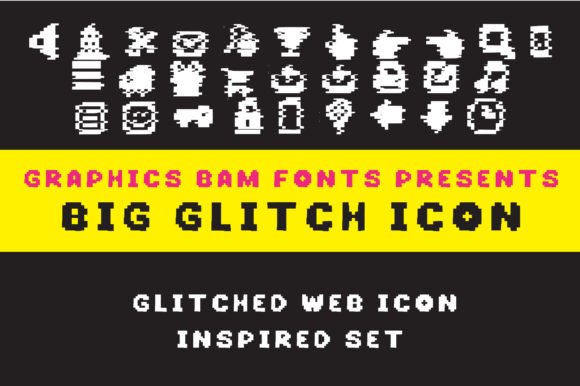
Glitching into the World of Design
You know that moment when you’re brainstorming a new design concept, and suddenly, everything clicks? You feel like you’ve stumbled upon a hidden treasure trove of inspiration, and your creativity runs wild. For designers, these moments are pure magic. And today, I want to share with you a secret that’s about to take your designs to the next level.
Meet the Big Glitch Icon Font – a cool, uniquely shaped, pixelated dingbats font that’s ready to disrupt the design world. This trendy font is designed to add a distorted, futuristic touch to your designs, making them stand out in a crowded market. Whether you’re working on a web project, a mobile app, or a graphic design piece, the Big Glitch Icon Font is the perfect addition to your toolkit.
Big Glitch Icon Font Features
Big Glitch Icon Font Review
Overall, I’d say the Big Glitch Icon Font is a solid choice for designers looking to add some edgy flair to their projects. ✨ The font’s glitchy aesthetic is well-executed and adds a unique touch to any design.
- ✨ The font’s glitchy effects are well-designed and can be easily customized to fit different design needs.
- ✨ The icon font includes a wide range of characters, from basic shapes to more complex graphics.
- ✨ The font is highly customizable, allowing designers to adjust size, color, and other attributes to fit their design.
- ⚠️ The font’s glitchy effects can sometimes be overwhelming or distracting, especially in text-heavy designs.
- ⚠️ Some icons may not be as detailed or clear as they could be, which can make them difficult to read or understand.
- ⚠️ The font’s customization options can be a bit overwhelming, especially for designers who are new to icon fonts.
Overall, I’d recommend the Big Glitch Icon Font for designers who want to add a unique and edgy touch to their projects. While it may have some limitations, the font’s versatility and customizability make it a solid choice for a wide range of design applications.
Big Glitch Icon Font Practical Application Guide
Tips: Use Big Glitch Icon Font to add a touch of futuristic style to your Canva designs. Experiment with different icon combinations to create a unique visual identity.
Tips: Use Big Glitch Icon Font to add a futuristic feel to your Adobe designs. Experiment with different icon combinations to create a unique visual identity.
Tips: Use Big Glitch Icon Font to add a touch of modern style to your PowerPoint or Word documents. Experiment with different icon combinations to create a unique visual identity.
Big Glitch Icon Font is perfect for:
– Modern website designs
– Futuristic-themed presentations
– Tech-related marketing materials
– Minimalist visual identities
Are the icons in Big Glitch Icon Font customizable?
Yes, the icons in Big Glitch Icon Font are customizable. You can use the font’s built-in glyph mapping to replace individual icons or create custom icons by modifying the font’s SVG code. Additionally, you can use the font’s CSS classes to style the icons and apply custom colors, sizes, and animations.